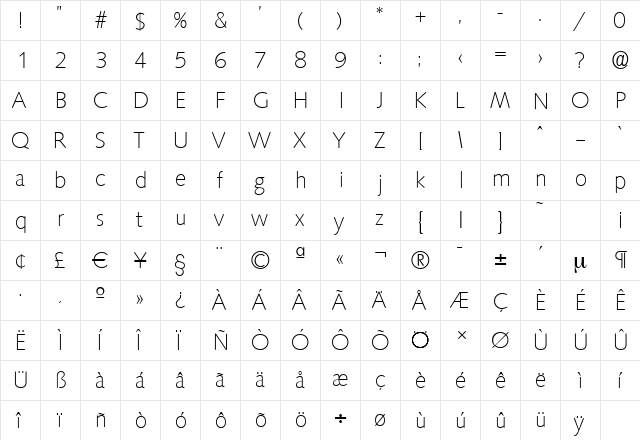
SaxonySerial-Xlight Regular Font Preview
SaxonySerial-Xlight Regular
Design Context for SaxonySerial-Xlight Typeface
SaxonySerial-Xlight is a composed and adaptable typeface that performs quietly and consistently across a wide range of design contexts. The delicate stroke weight brings airiness and refinement to layouts.